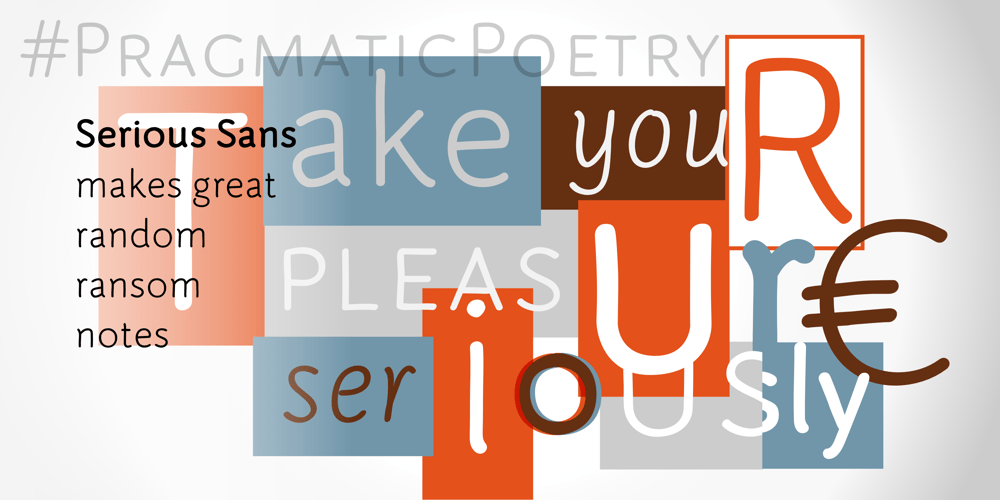
Serious Sans Font Family was designed by Diederik Corvers and published by Ogentroost. Serious Sans contains 4 styles and family package options. Friendly by shape, serious by structure. Serious Sans is a font for many occasions and it includes an alternate ‘a’ and ‘g’ for primary school use.